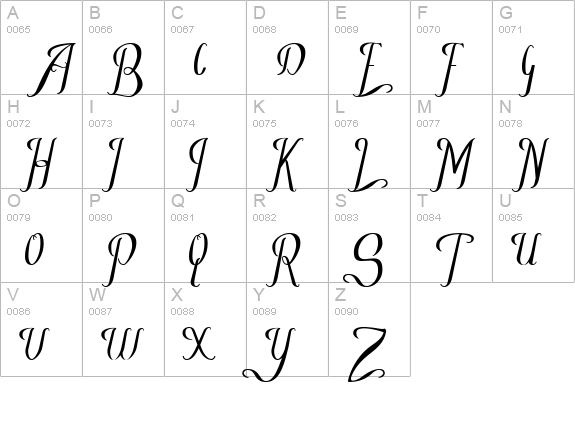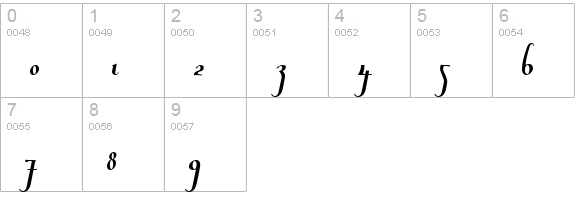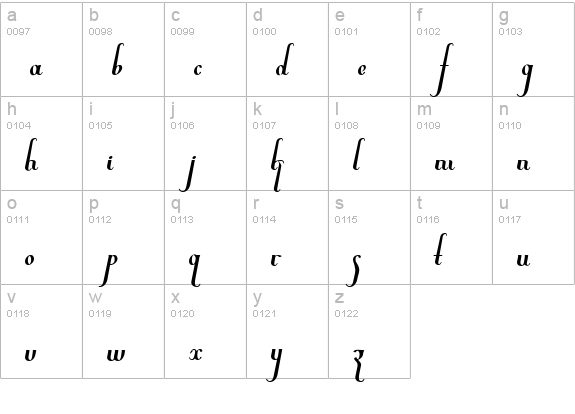
Chancera Font Details
Chancera font is a stylish and elegant typeface that exudes sophistication and charm. With its unique combination of modern and classic elements, this font is perfect for adding a touch of luxury to your designs. The sleek curves and sharp angles of Chancera font create a sense of dynamism and energy, making it a versatile choice for a wide range of projects. What sets Chancera font apart is not just its striking aesthetic appeal, but the fact that it is also available for free download at FontsMarket.com. This means that you can easily access and use this stunning font in your creative endeavors without any cost involved. Whether you are working on branding, editorial design, or any other type of project, Chancera font is sure to make a lasting impression with its elegance and flair. So why wait? Head over to FontsMarket.com now and download Chancera font for free to elevate your designs and bring your creative vision to life!